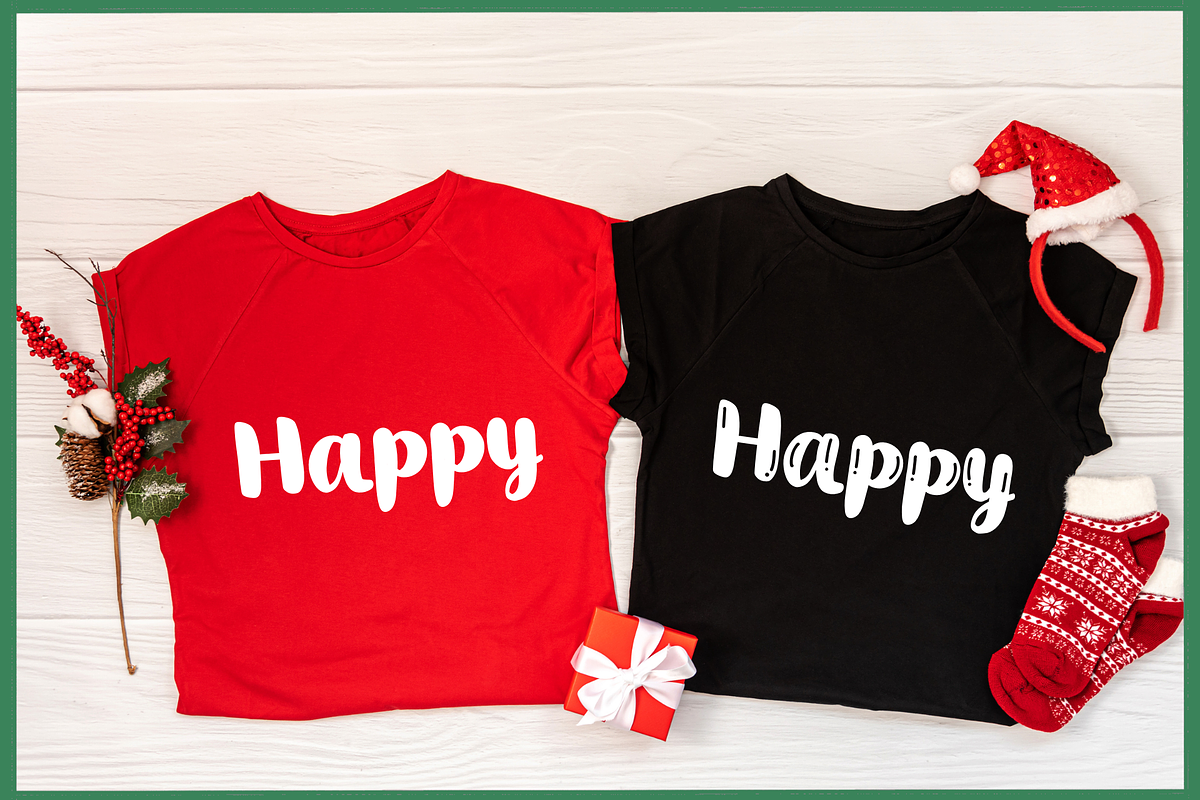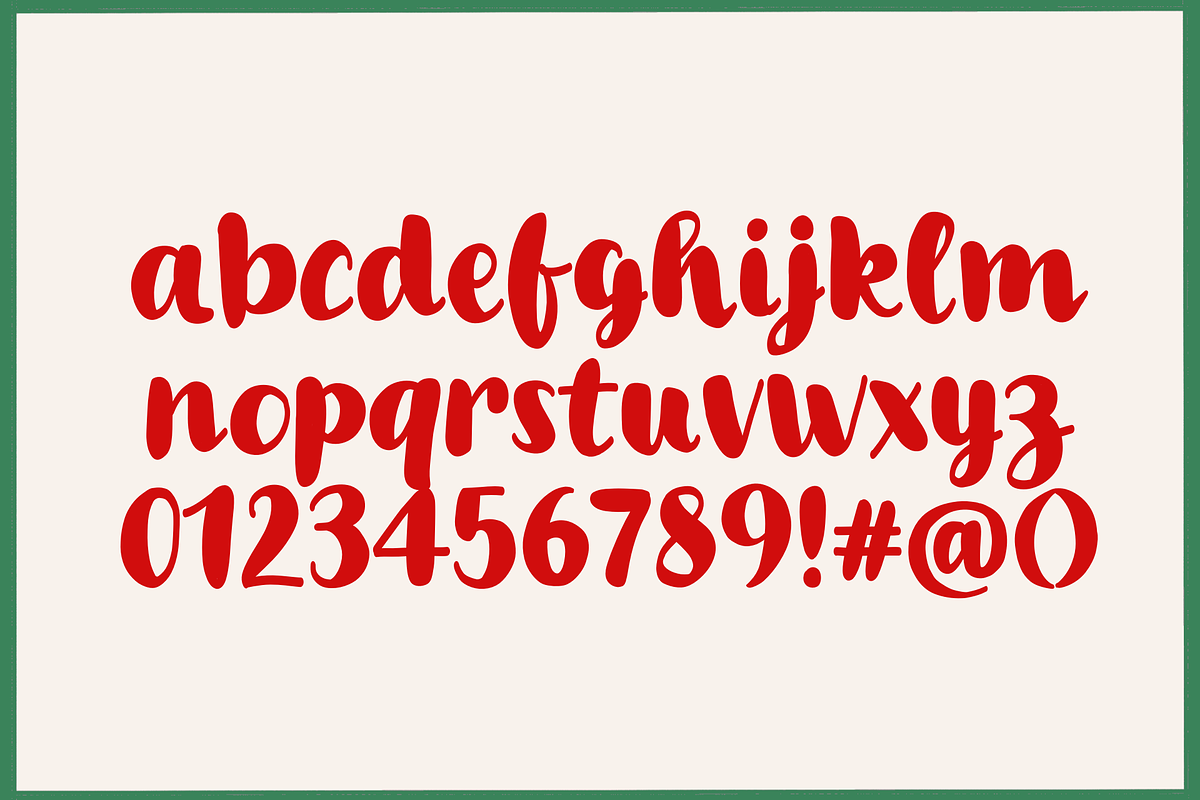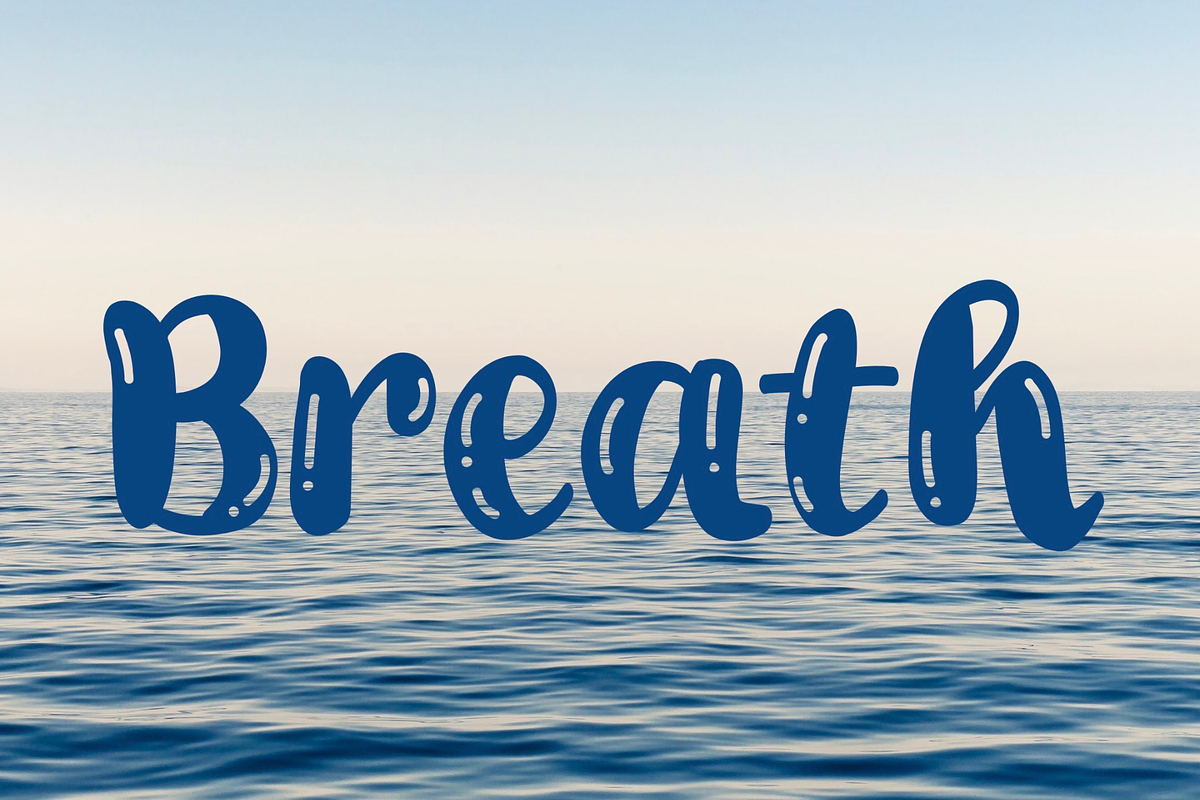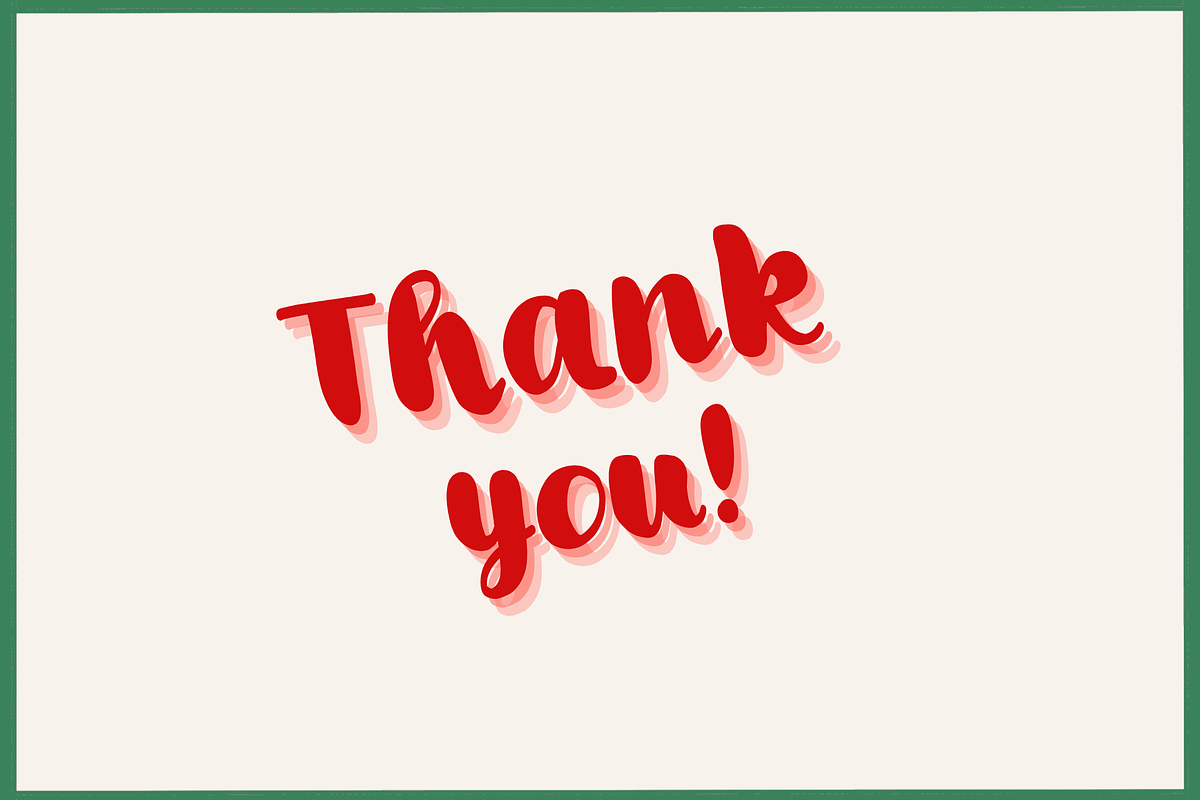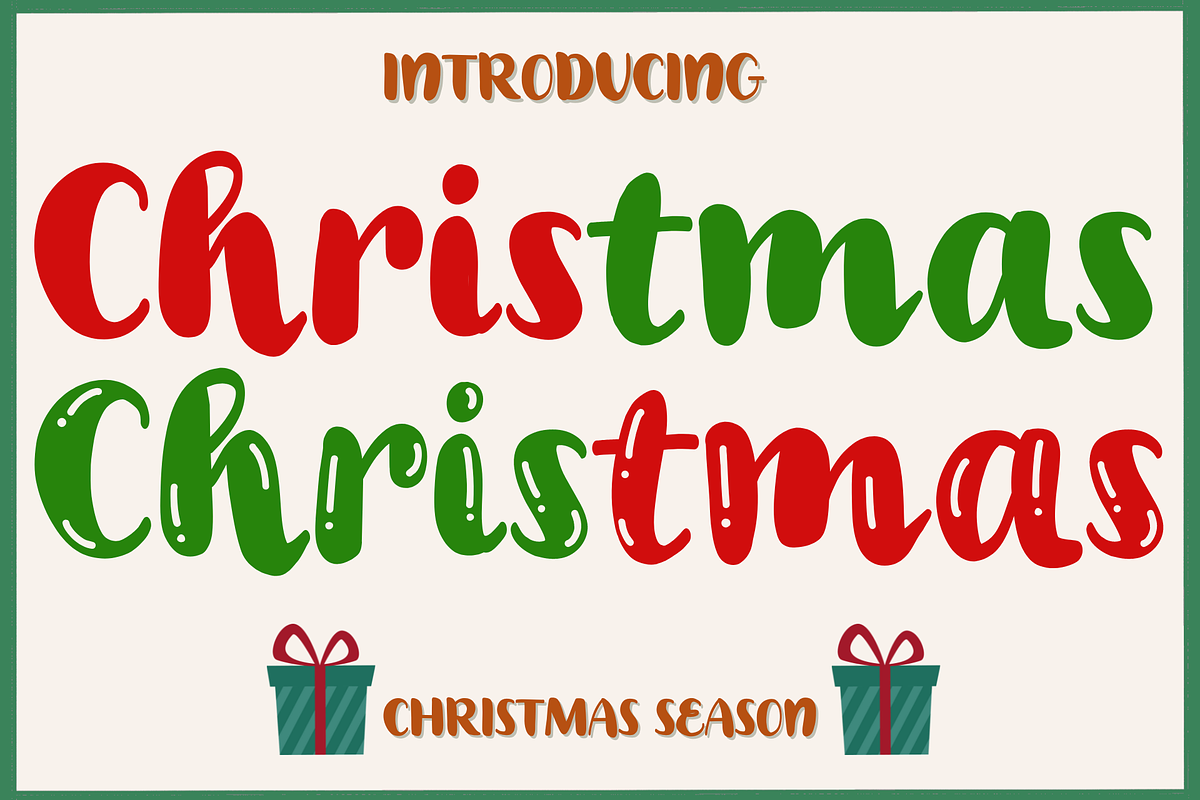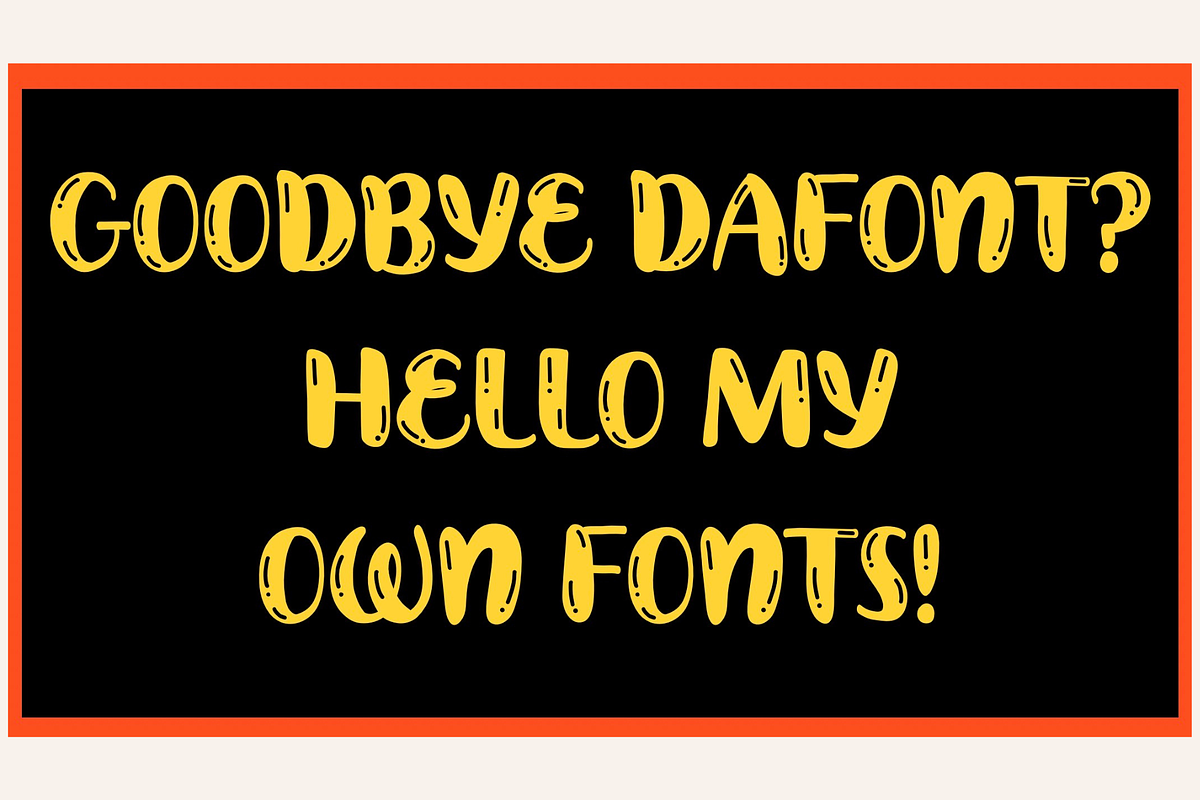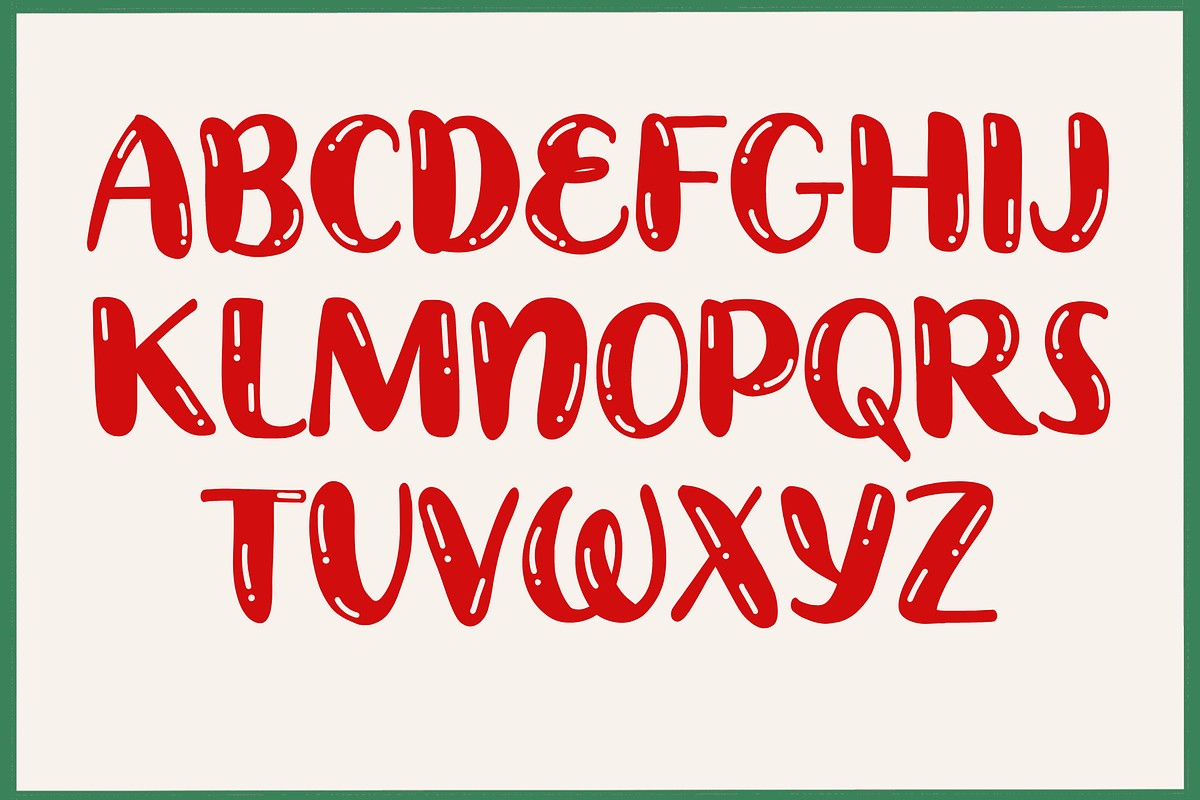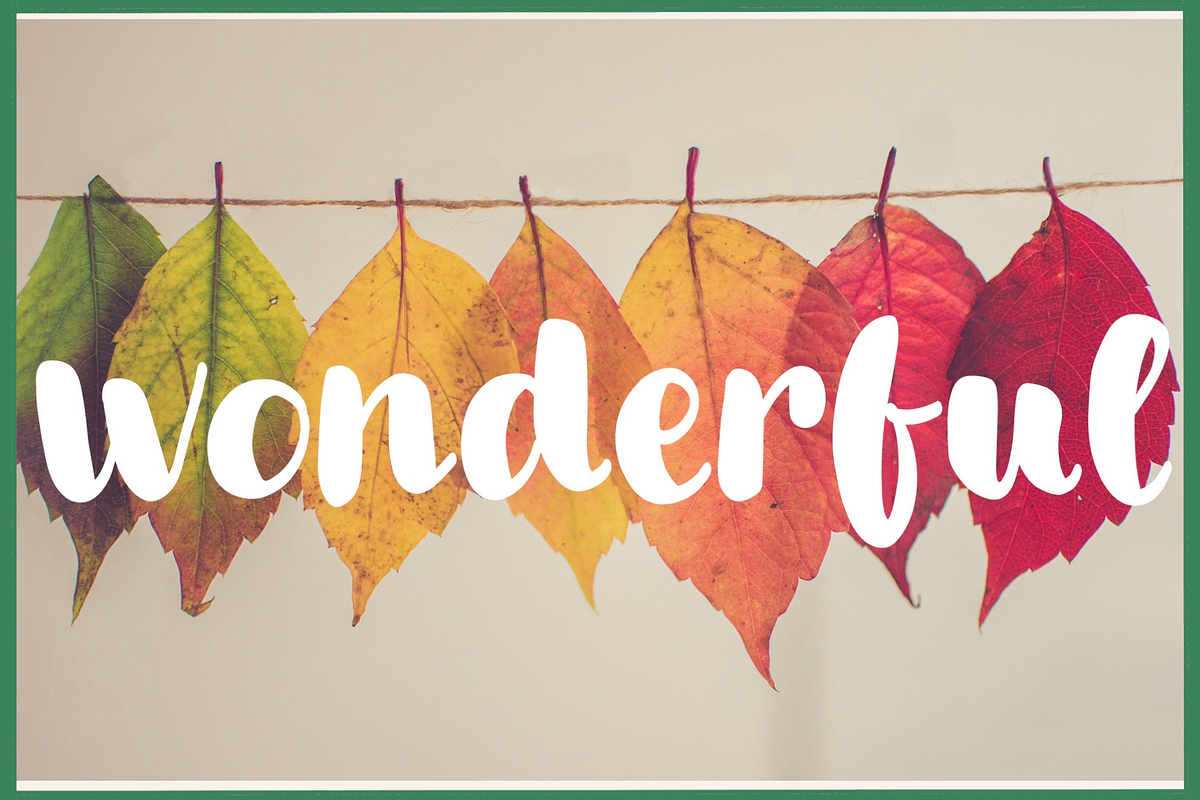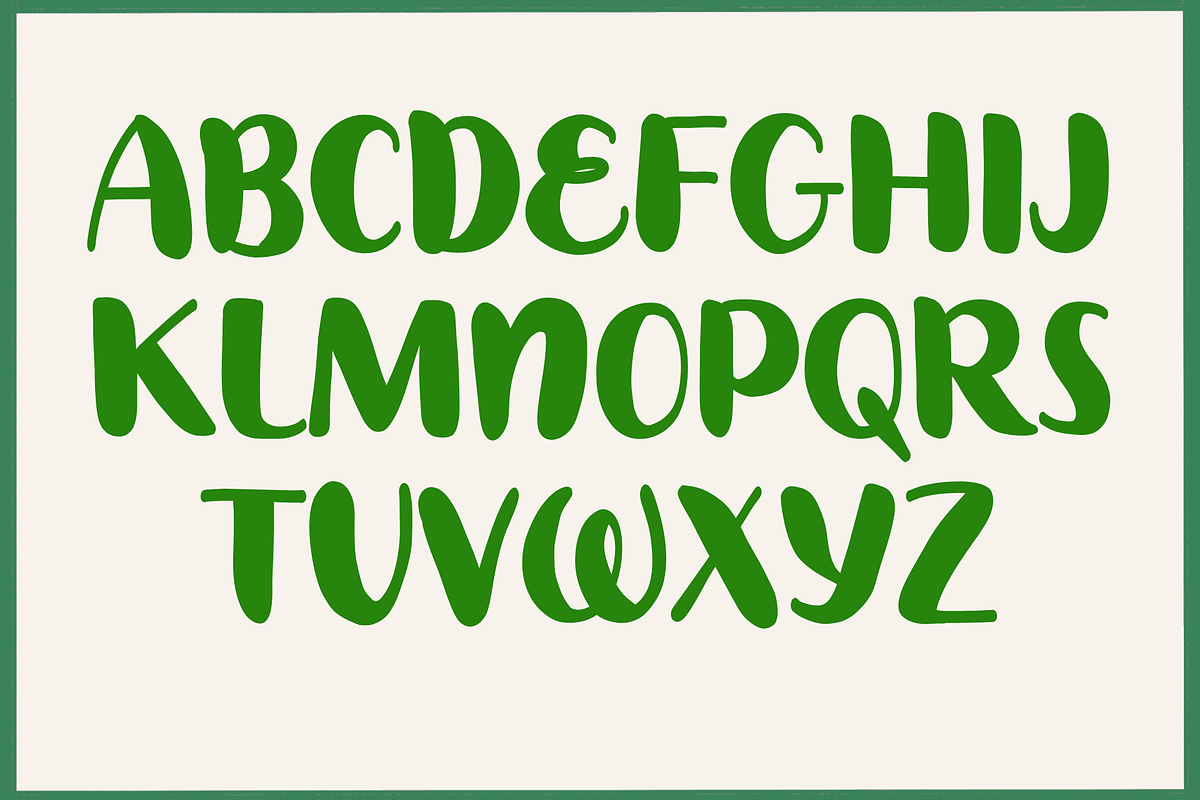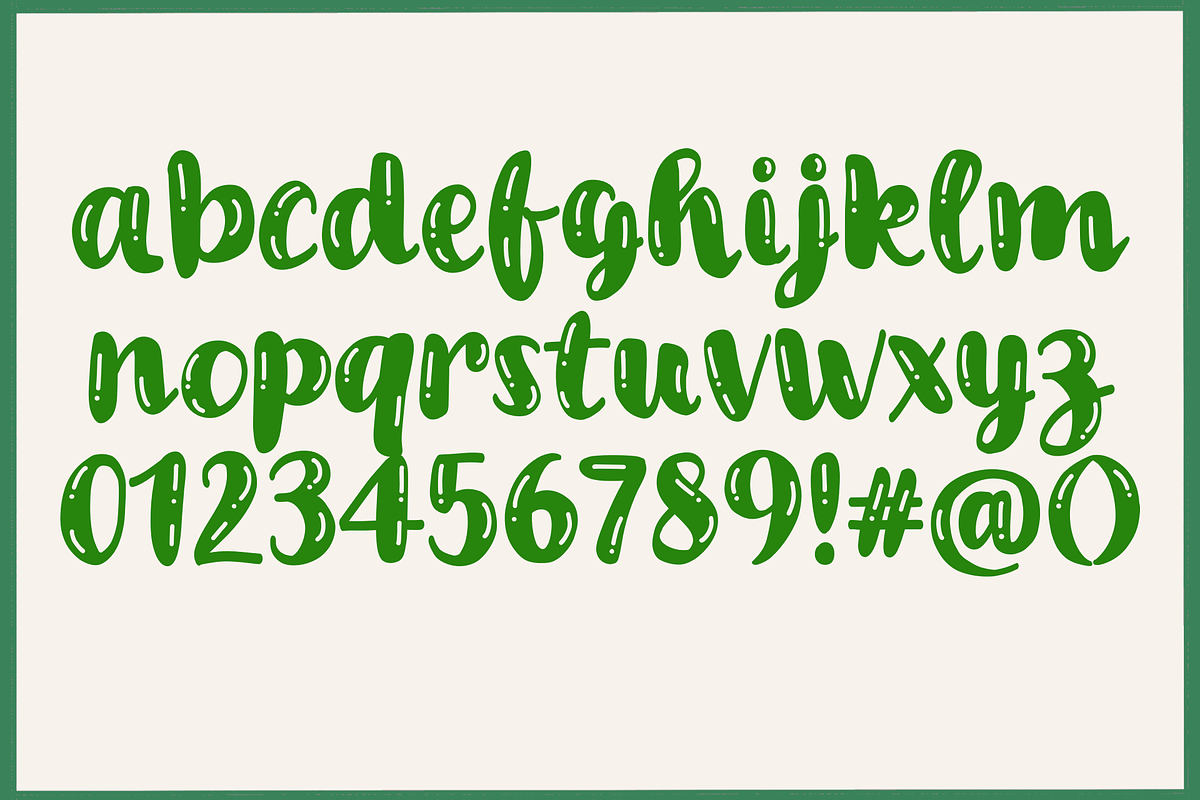
Christmas season
Christmas season fonts, Super cute handwriting font, simple style, suitable for teaching. decorate the presentation Use for education, advertising, illustration, multi-purpose use. welcome everyone thanks.
It is a creative, simple design that is suitable for all applications.